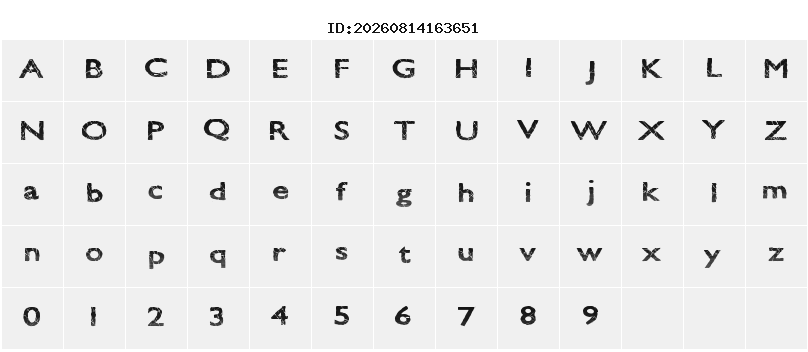
• Font Name: StonedHeights
• Designer: Xerographer Fonts Max Infeld
• Manufacturer: Xerographer Fonts
• Description: Made at Xerographer Studios in Ojai,CA
About StonedHeights.ttf
StonedHeights.ttf is a modern, elegant sans-serif font designed for ultimate readability and visual harmony. Perfect for branding, headlines, web design, and print materials.